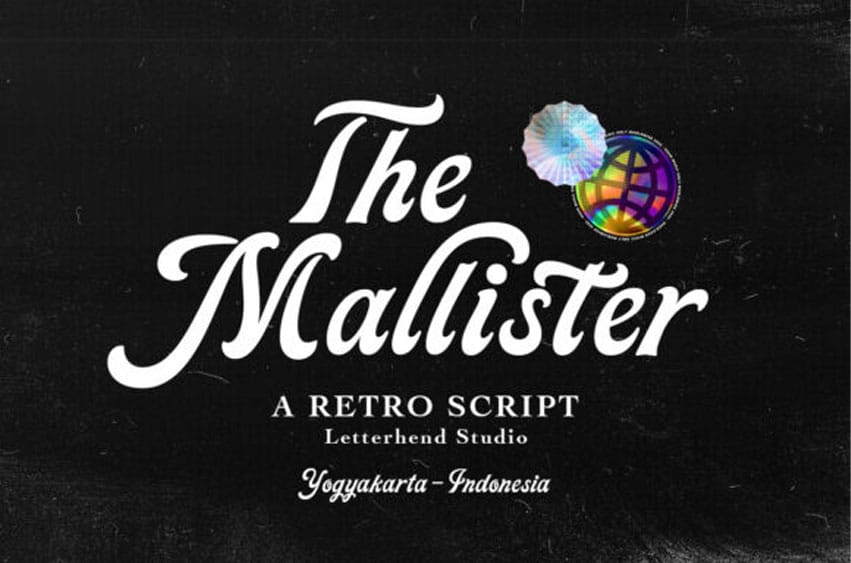
The Mallister Font is a retro script font with a touch of vintage look and feel.
It is perfect for product packaging, branding project, magazine covers, social media, wedding, or just used to express words above the background.